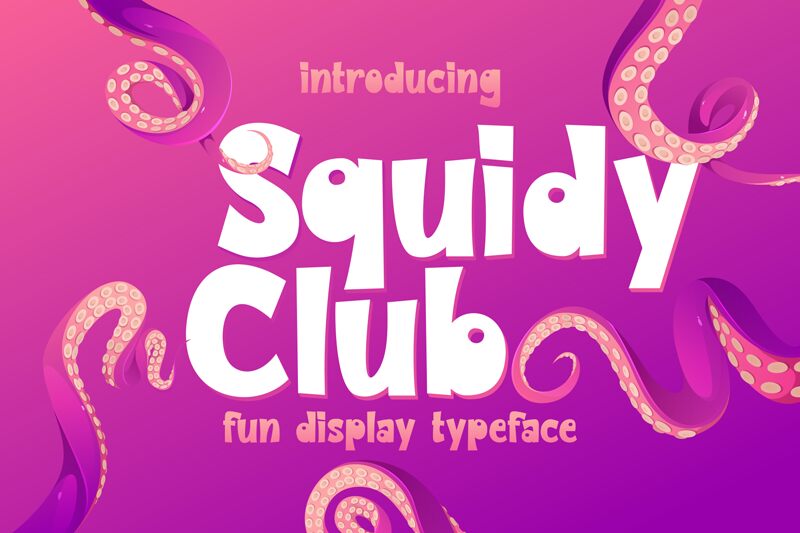
Squidy Club, a captivating display font by RT Studio, is the perfect choice for projects that demand attention and evoke a sense of whimsy. With its bold, cartoon-style design, this typeface adds a playful touch to children's books, party invitations, and animated advertisements. The weighty characters of Squidy Club make it ideal for eye-catching headlines on websites or attention-grabbing signage at events. Let your creativity flow and bring your projects to life with the charming Squidy Club font.